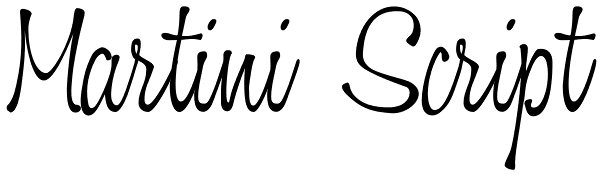
Martini Script
Martini Script is a cool, retro script with its origins in the hand-lettered ads of the 40s and 50s. During the second half of the 20th century, the introduction of new technologies, along with a change of taste, brought about the demise of hand...
Martini Script
Martini Script Fat